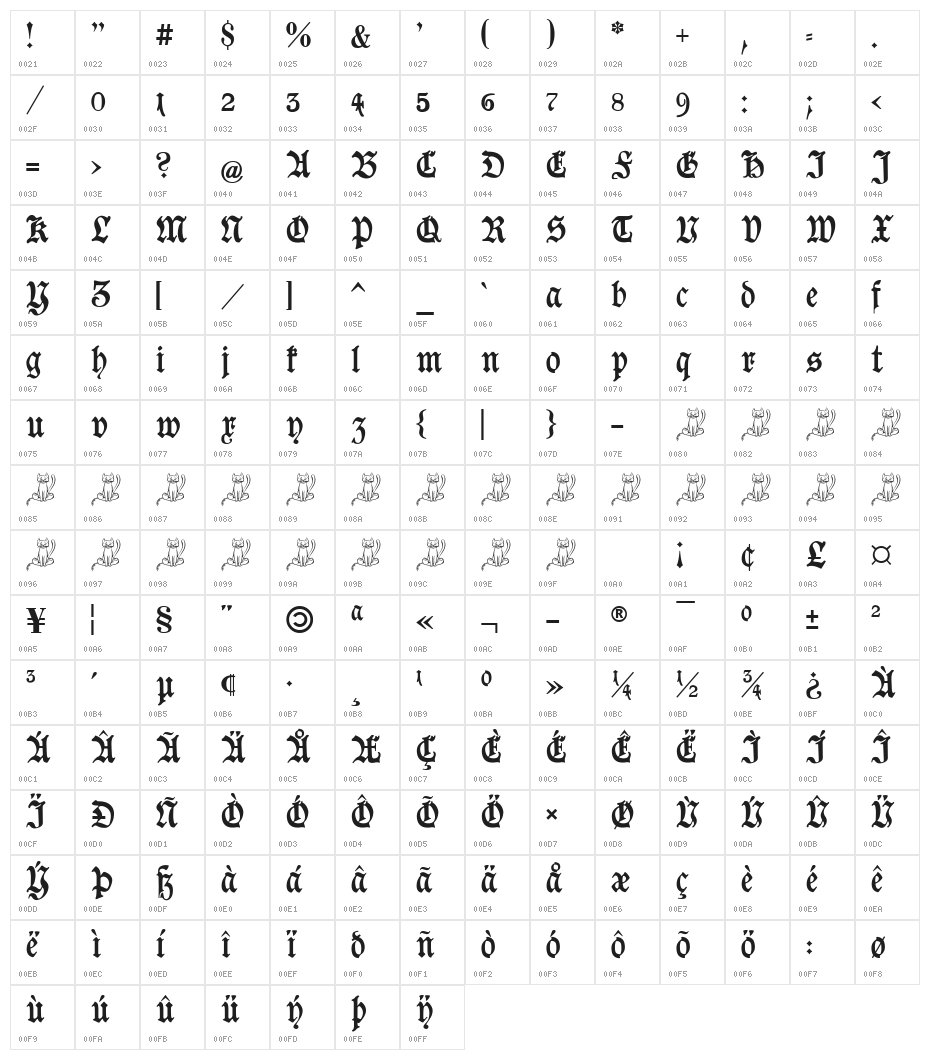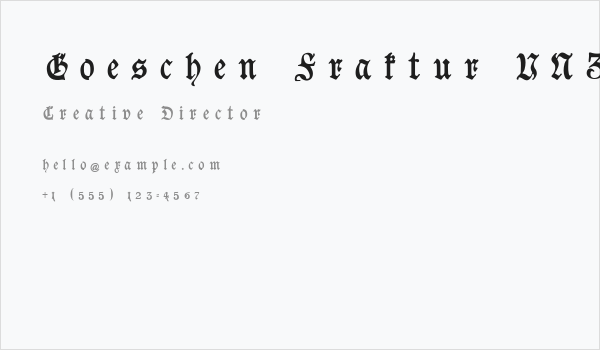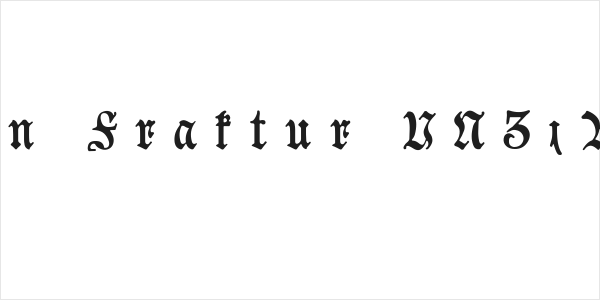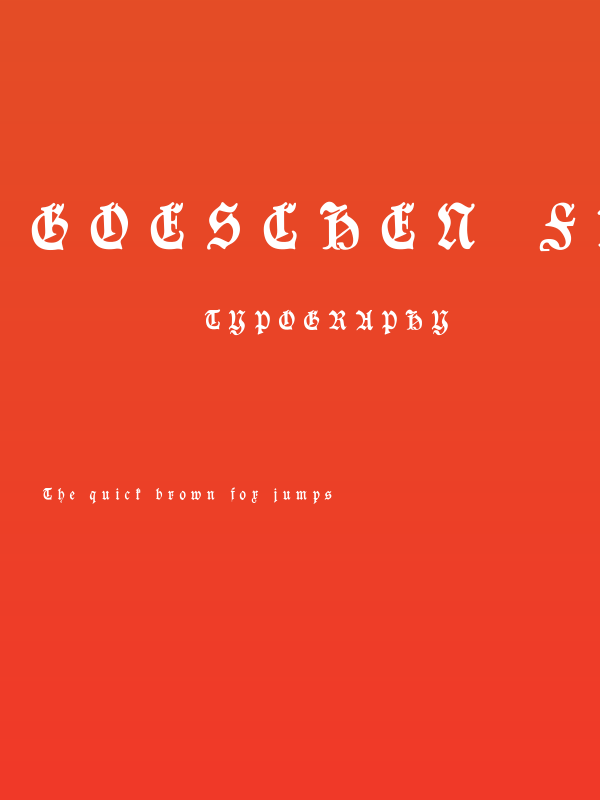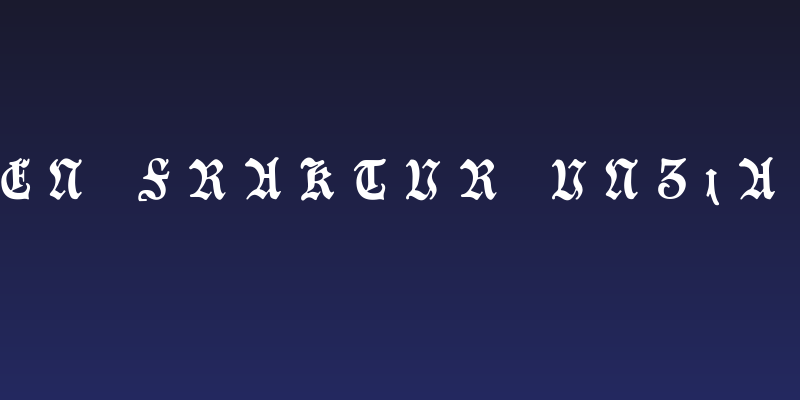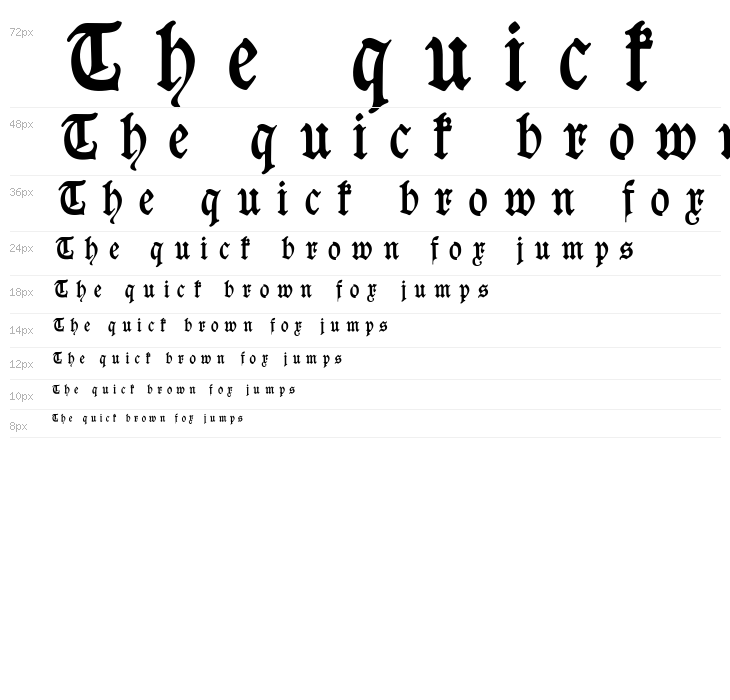
Goeschen Fraktur UNZ1A Italic Font
Goeschen Fraktur UNZ1A Italic Description
This font is a classic example of the Blackletter style, characterized by its ornate and intricate design. The letters feature sharp, angular lines with elaborate serifs and flourishes, reminiscent of medieval script. The uppercase letters are bold and commanding, while the lowercase letters maintain a consistent style with slightly more subtle detailing. The numbers and special characters follow the same aesthetic, ensuring a cohesive look across all glyphs. The italic nature of the font adds a dynamic and flowing quality, enhancing its decorative appeal. This font is ideal for projects that require a historical or traditional touch, such as certificates, invitations, or branding for vintage-themed products.
| Use Case | Headlines, Logos, Decorative text |
| Proposed Projects | Ideal for historical documents, vintage branding, certificates, and decorative invitations. |